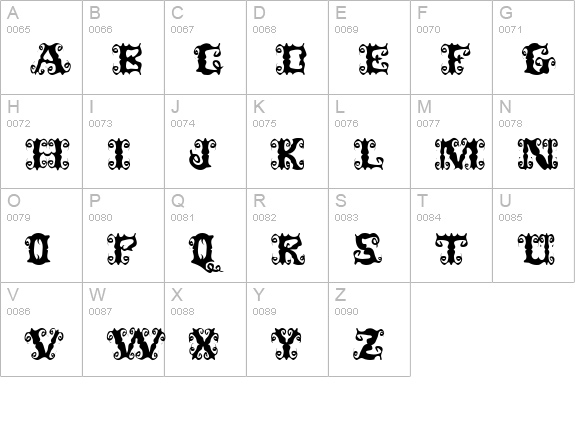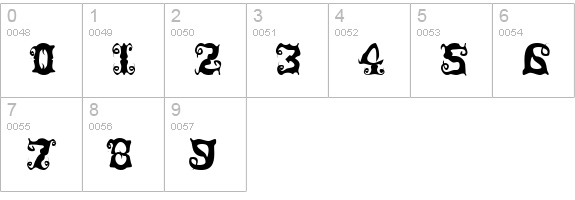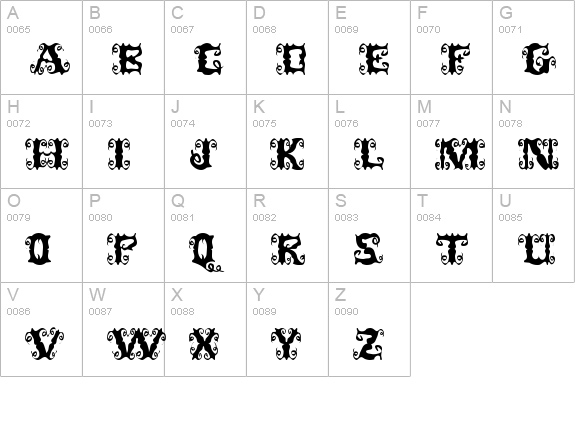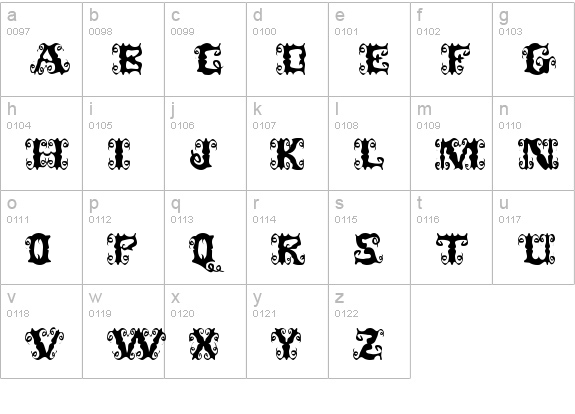
Introducing Shirly UJest, a stunning font that effortlessly combines elegance with a touch of playfulness. This unique typeface is designed to captivate and engage, making it perfect for a wide range of creative projects. Shirly UJest features a carefully crafted design that exudes a sense of sophistication and charm. With its clean lines, balanced proportions, and intricate details, this font is sure to grab attention and leave a lasting impression. But what makes Shirly UJest even more appealing is that it is free! Yes, you heard it right. This incredible font is freely available to download at FontsMarket.com. Whether you're a professional designer or a hobbyist, this font is a must-have addition to your collection. With its versatility and timeless appeal, Shirly UJest can be used in various contexts, from branding and packaging to web design and social media graphics. It effortlessly adapts to different styles and moods, allowing you to create visually stunning and engaging content. The attention to detail in Shirly UJest is truly remarkable. Each character is meticulously crafted to ensure legibility and visual harmony. From the graceful curves to the delicate serifs, every aspect of this font has been carefully considered to provide a seamless reading experience. Embrace the beauty of Shirly UJest and let your creativity soar. Download this remarkable font today and unlock a world of possibilities. Whether you're designing a logo, creating a poster, or crafting an invitation, Shirly UJest will elevate your projects to new heights. Don't miss out on this incredible opportunity to enhance your design toolkit with a free font that is both elegant and playful. Visit FontsMarket.com now to download Shirly UJest and embark on a creative journey like no other.